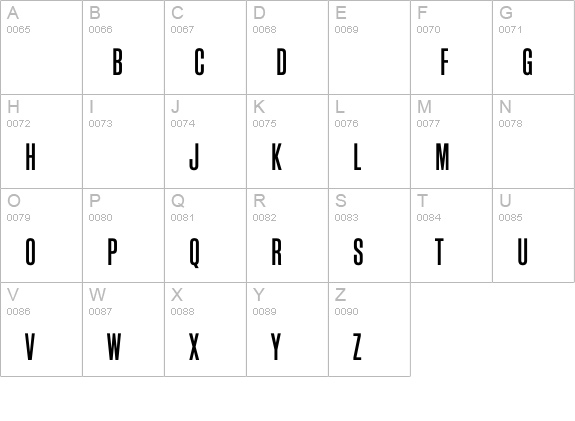
BlockGothicMediumExtraCond font is a modern and sleek typeface that exudes a sense of boldness and sophistication. With its sharp edges and condensed design, this font is perfect for creating eye-catching headlines, posters, and branding materials. The clean lines and geometric shapes of BlockGothicMediumExtraCond give it a contemporary and edgy look that is sure to make your designs stand out. What's even better is that BlockGothicMediumExtraCond font is available for free download at FontsMarket.com. Whether you're a designer looking to add a unique touch to your projects or a business owner seeking a fresh look for your branding, this font is a great choice. Don't miss out on the opportunity to get this stylish and versatile font for free and take your designs to the next level with BlockGothicMediumExtraCond.